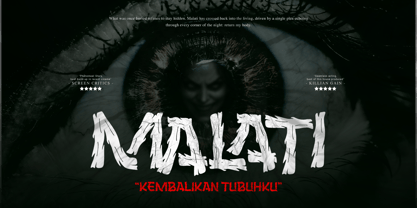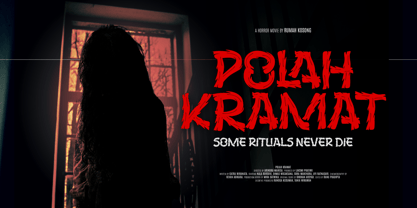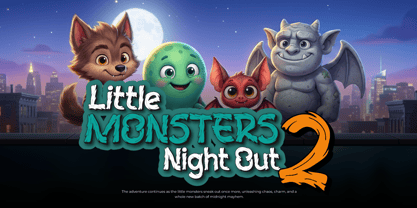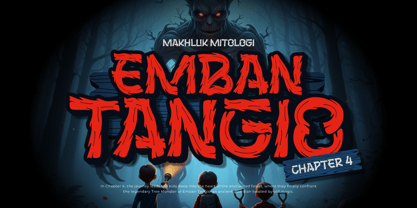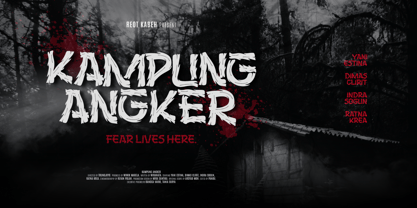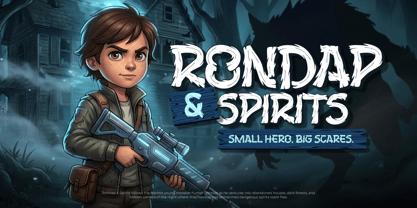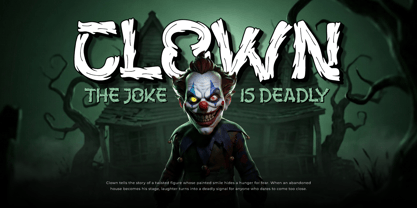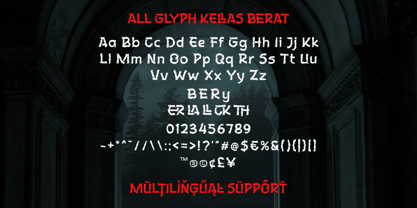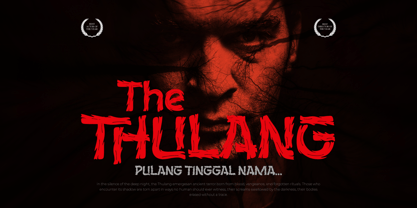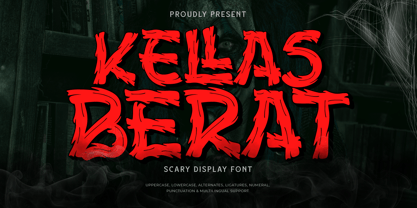
Kellas Berat is a scary display font featuring rough, sharp, and expressive letterforms designed to create fear, mystery, and intense emotion. Its handcrafted, brutal strokes immediately grab attention and deliver a powerful visual impact.
This font is perfect for horror movie titles, Halloween posters, fiction book covers, horror games, crime visuals, and mysterious storytelling projects. Each letter feels bold and chaotic, enhancing the dark and unsettling atmosphere.
With its aggressive handwriting style, Kellas Berat helps designers visually communicate tension, fear, and dark imagination. An ideal choice for dramatic headlines that demand a strong and unforgettable presence.
Kellas Berat